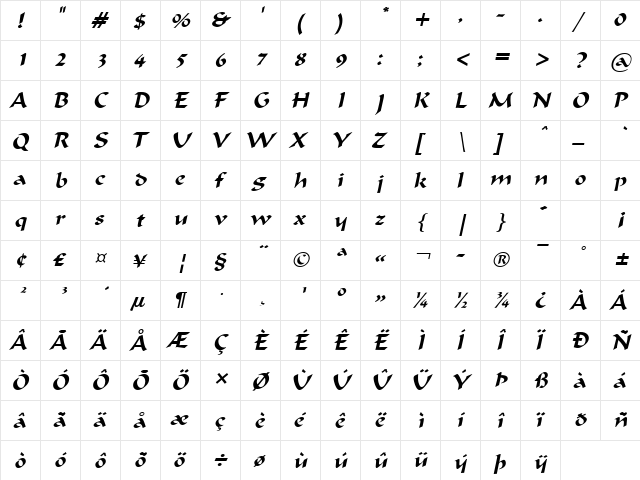
Flat Brush Wide Italic
Design Context for Flat Brush Wide Typeface
Flat Brush Wide brings a calligraphic fluidity to the page — its connecting strokes and expressive curves give it an unmistakably human quality.